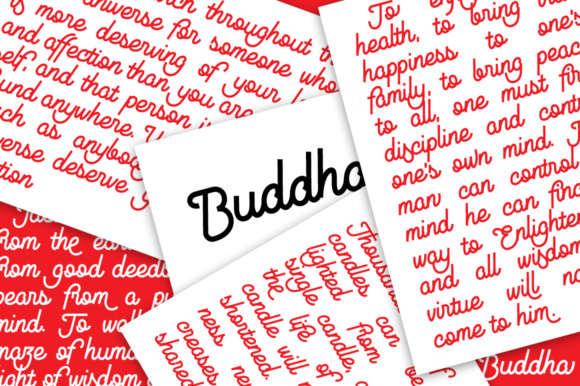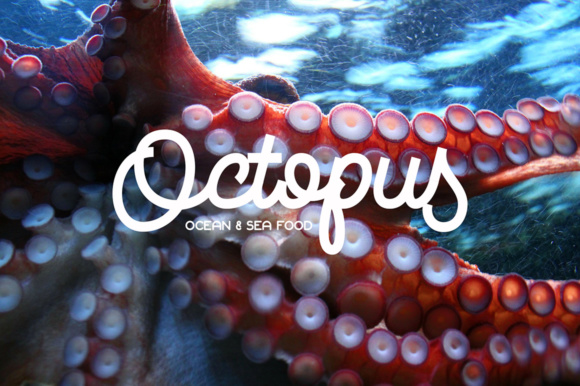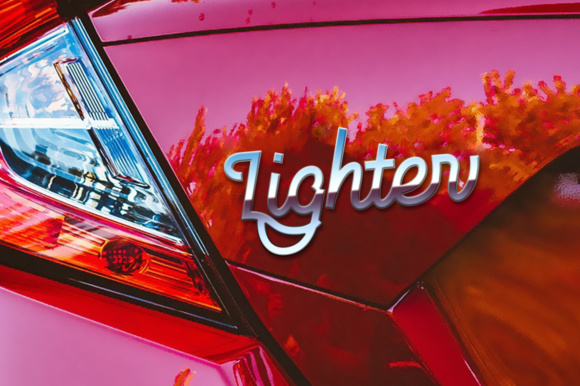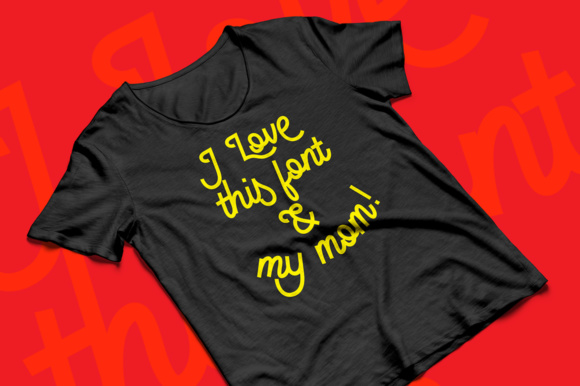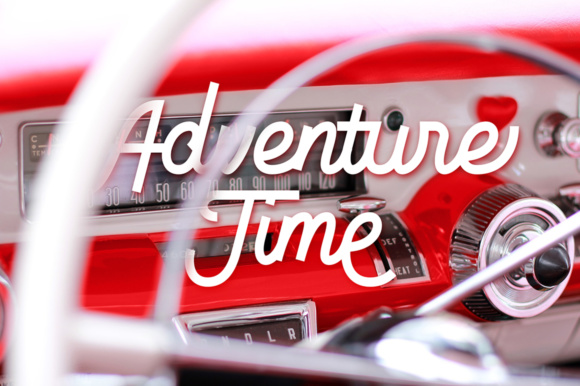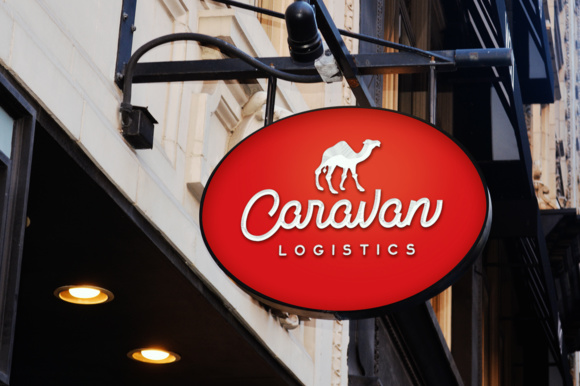
Courtney Font: Elevate Your Designs with a Cool and Retro Script Font
Are you on the hunt for a font that adds a touch of sophistication and glamour to your designs? Look no further than the Courtney font, a stunning script font that’s perfect for headlines, logotypes, and more. With its unique monoline style and sharp edges, Courtney is a versatile font that can elevate a wide range of projects, from branding and advertising to packaging and digital media.
What Makes Courtney Font So Special?
Courtney is a cool and retro script font that’s designed to make a statement. Its cursive style is characterized by smooth, flowing lines and sharp edges that give it a distinctive look. The monoline style of the font means that the lines are of uniform width, creating a clean and refined aesthetic that’s perfect for designs that require a touch of elegance.
One of the standout features of the Courtney font is its versatility. Whether you’re working on a logo, a headline, or a body of text, Courtney looks great in a wide range of projects. The font is highly legible, even at small sizes, making it perfect for use in digital media, such as websites and social media graphics.
Perfect for Headlines and Logotypes
Courtney font is particularly well-suited for use in headlines and logotypes. The font’s bold, cursive style makes it perfect for grabbing attention and adding a touch of drama to your designs. The sharp edges and monoline style of the font also give it a modern, edgy feel that’s perfect for brands looking to stand out from the crowd.
Whether you’re designing a logo for a new business or creating a headline for a marketing campaign, Courtney font is a great choice. The font is easy to read and understand, even at large sizes, making it perfect for use in a wide range of applications.
Great for a Wide Range of Projects
Courtney font is a versatile font that can be used in a wide range of projects, including:
- Branding and advertising: Use Courtney font to create bold, eye-catching headlines and logotypes that will help your brand stand out.
- Packaging: Add a touch of elegance and sophistication to your packaging designs with Courtney font.
- Digital media: Use Courtney font to create stunning social media graphics, website headers, and more.
- Stationery: Add a touch of glamour to your stationery designs, such as business cards and letterheads, with Courtney font.
Tips for Using Courtney Font
Here are a few tips for getting the most out of Courtney font:
- Use it sparingly: Courtney font is a bold, attention-grabbing font that’s best used sparingly. Use it for headlines and logotypes, and pair it with a simpler font for body text.
- Experiment with colors: Courtney font looks great in a wide range of colors, from bold and bright to pastel and subtle. Experiment with different colors to find the perfect look for your design.
- Pair it with other fonts: Courtney font pairs well with a wide range of other fonts, from simple sans-serifs to elegant serifs. Experiment with different pairings to find the perfect look for your design.
Courtney font is a stunning script font that’s perfect for designers and crafters looking to add a touch of elegance and sophistication to their designs. With its unique monoline style and sharp edges, Courtney is a versatile font that can be used in a wide range of projects, from branding and advertising to packaging and digital media.
Whether you’re a seasoned designer or just starting out, Courtney font is a great addition to your font library. So why not give it a try and see how it can elevate your designs?